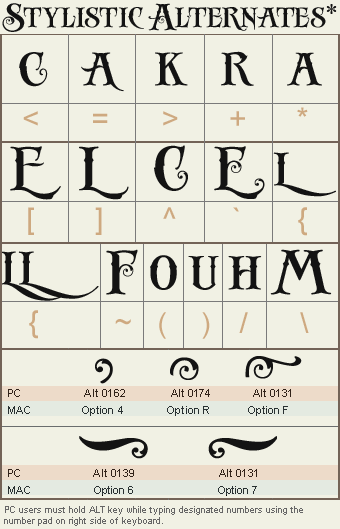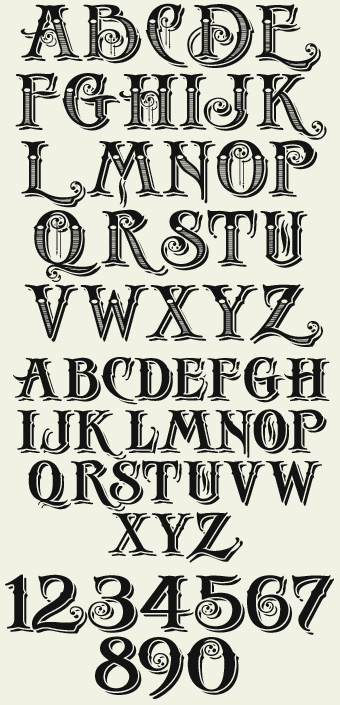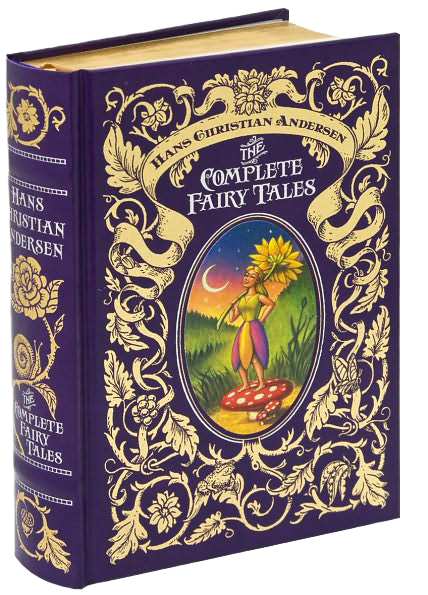
Antique Shopby Chuck Davis |
Unique period style. Features ornamental caps, automatic ligatures and manual stylistic alternates. Also includes ornament pieces that fit on top of the decorative caps. Family includes 5 fonts: LHF Antique Shop Regular, LHF Antique Shop Fancy, LHF Antique Shop Shadow, LHF Antique Shop Deco 1 and LHF Antique Shop Deco 2. Watch the tutorial for more information.
Antique Shop Regular
Antique Shop Fancy
(SHADOW AND DECO ONE COMPONENTS TOGETHER)
Antique Shop Shadow
(TO BE USED IN CONJUNCTION WITH ANTIQUE SHOP REGULAR)